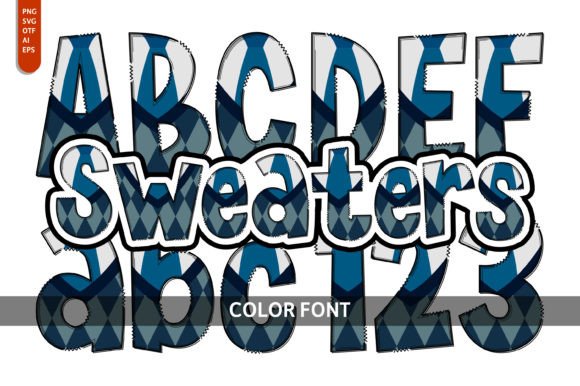
Prepare yourself for a world of visual delight and typographic enchantment with Sweaters Font, a vibrant and captivating color font family that will transform your designs into mesmerizing works of art. Experience the playful spirit and artistic allure that this font exudes, making it the perfect choice for a wide array of creative projects.
Step into a realm of endless possibilities with Sweaters Font, meticulously crafted to convey a sense of joy, wonder, and boundless imagination. Its vibrant palette and playful characters dance across the page, capturing the essence of childhood dreams and whimsical adventures. Unleash your creativity and let your designs blossom with an explosion of color and charm.
With Sweaters Font, you'll embark on a typographic journey unlike any other. Each letter is a masterpiece, adorned with intricate details and flowing lines that evoke a sense of nostalgia and childlike wonder. Let your words come alive with personality, inviting your audience to immerse themselves in a world of imagination and delight.
Whether you're crafting children's books, designing posters that ignite joy, or creating invitations that spark curiosity, Sweaters Font is your perfect companion. Its versatility knows no bounds, extending its magic to greeting cards, branding materials, and any project that craves a touch of whimsy and visual intrigue.
As you embrace Sweaters Font, you'll discover a font family that is not just a collection of letters, but a gateway to a world of creativity and expression. It's a symphony of colors and shapes, a dance of characters that will transform your designs into captivating experiences.
So, dive into the world of Sweaters Font, let your imagination soar, and create designs that resonate with the hearts and minds of your audience. Let your words dance with joy, your colors burst with vibrancy, and your designs captivate all who behold them.